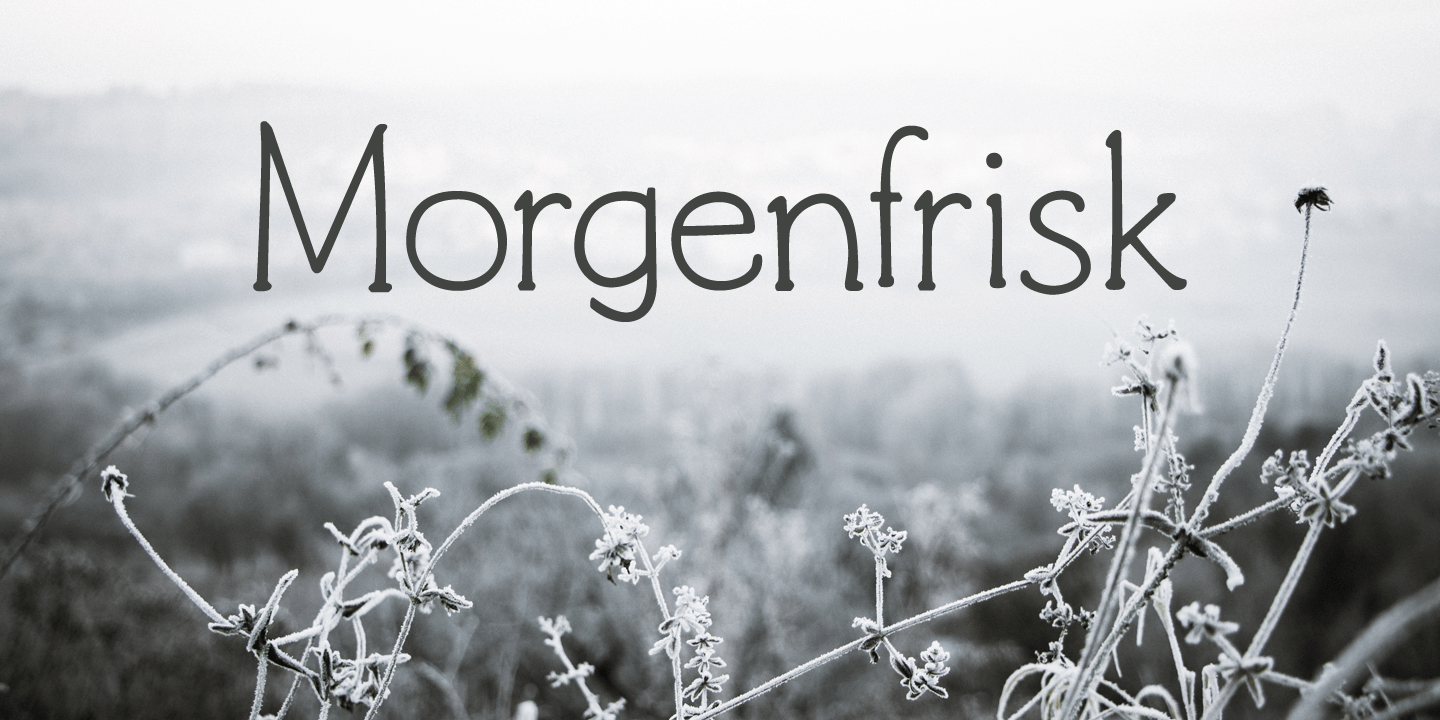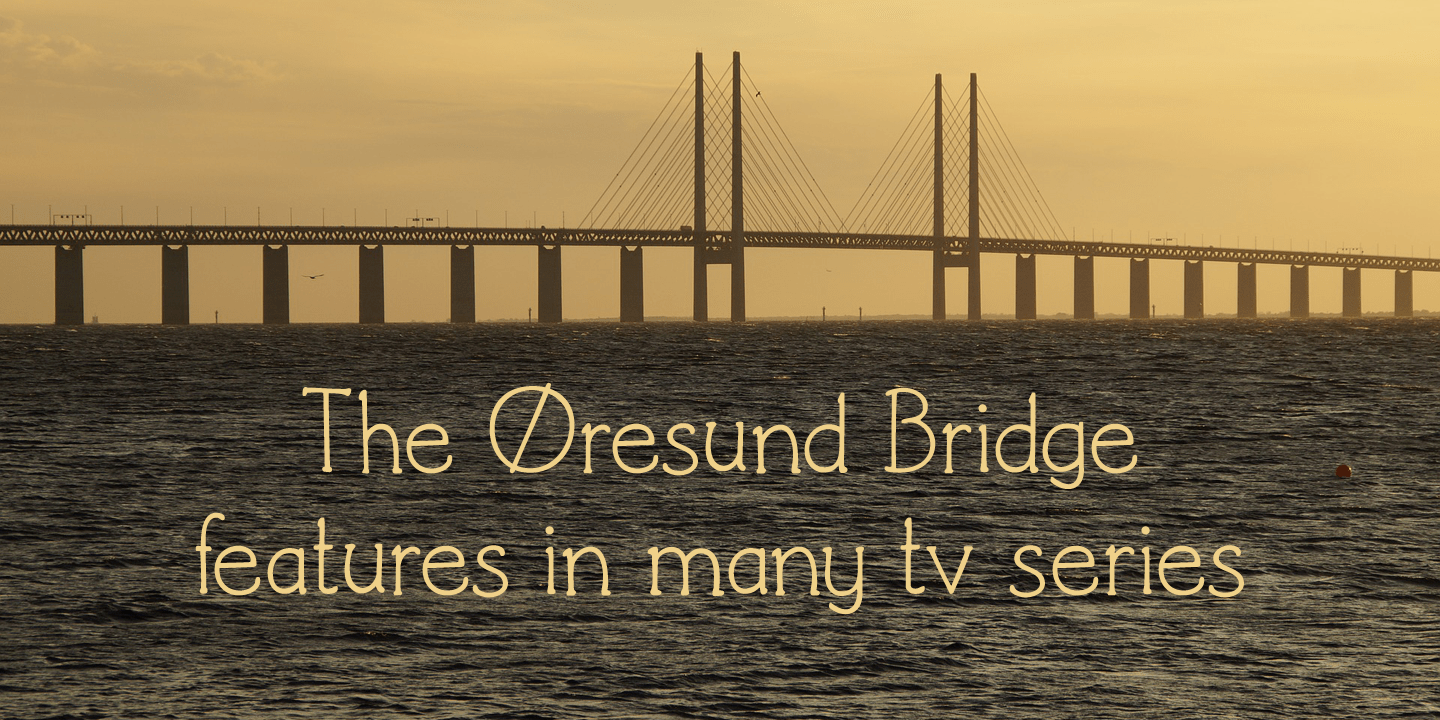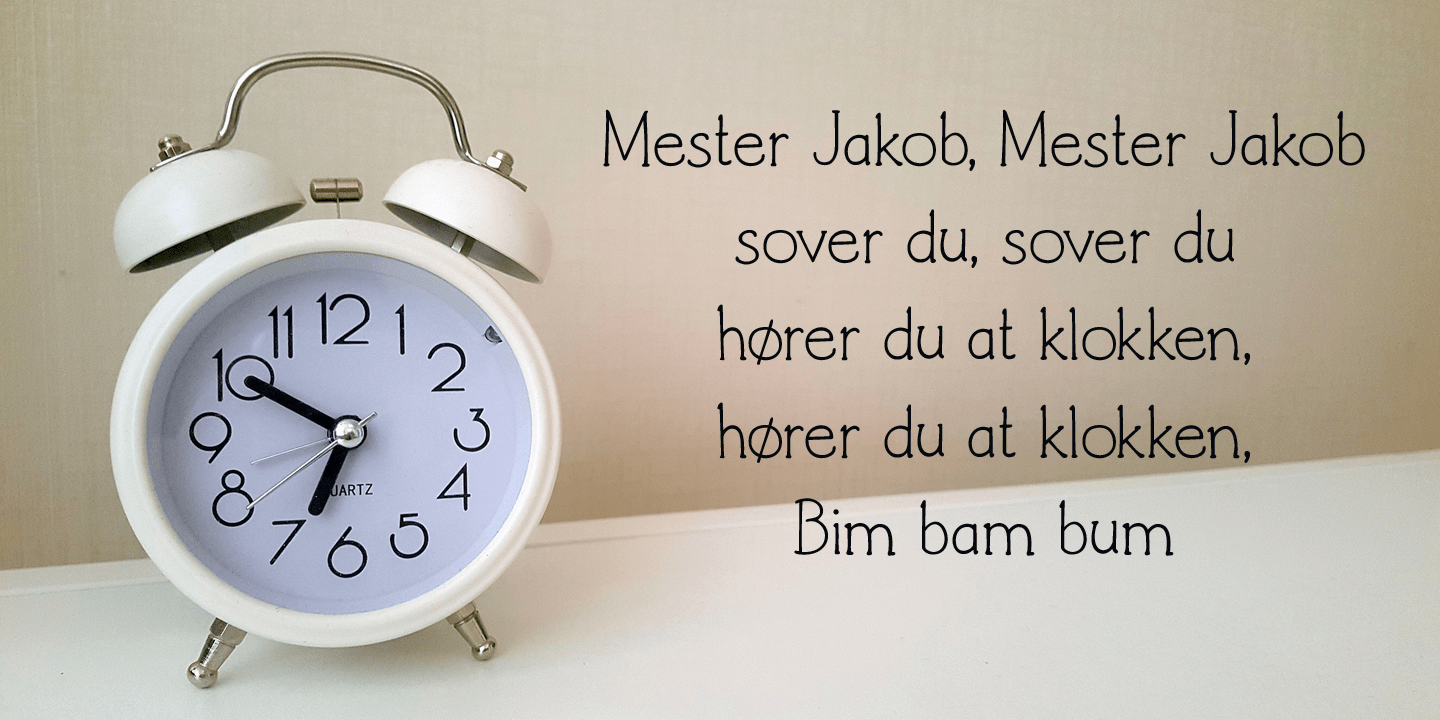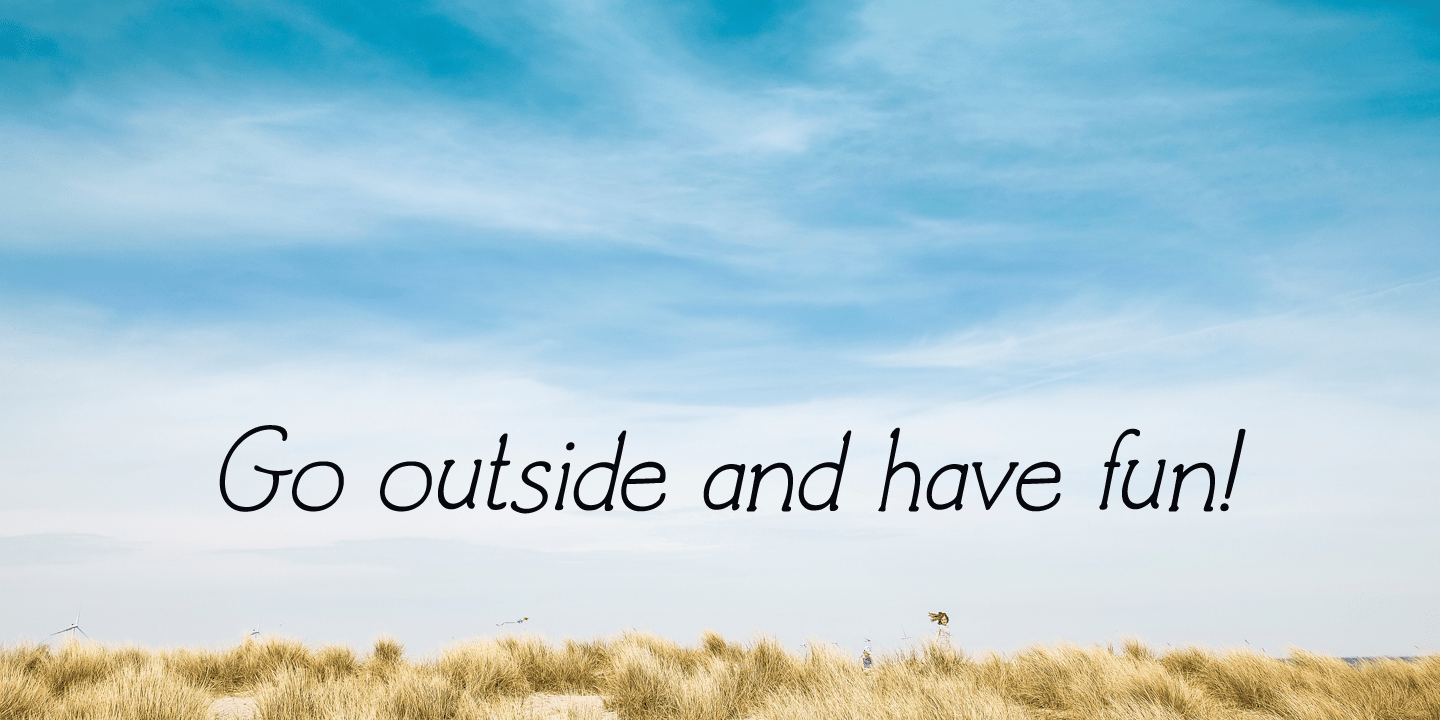
Morgenfrisk
Morgenfrisk is one of those words you cannot really translate: it is Danish for ?feeling refreshed after a good night's sleep?. Morgenfrisk font is a handmade, thin school class font - very legible, very neat and very nice too. I found the original letters in a Speedball? Text Book. There were only so many of them, so I designed the missing ones myself. I adjusted some of the original letters to a more contemporary look. Comes with a frisk amount of diacritics!
Morgenfrisk by Hanoded